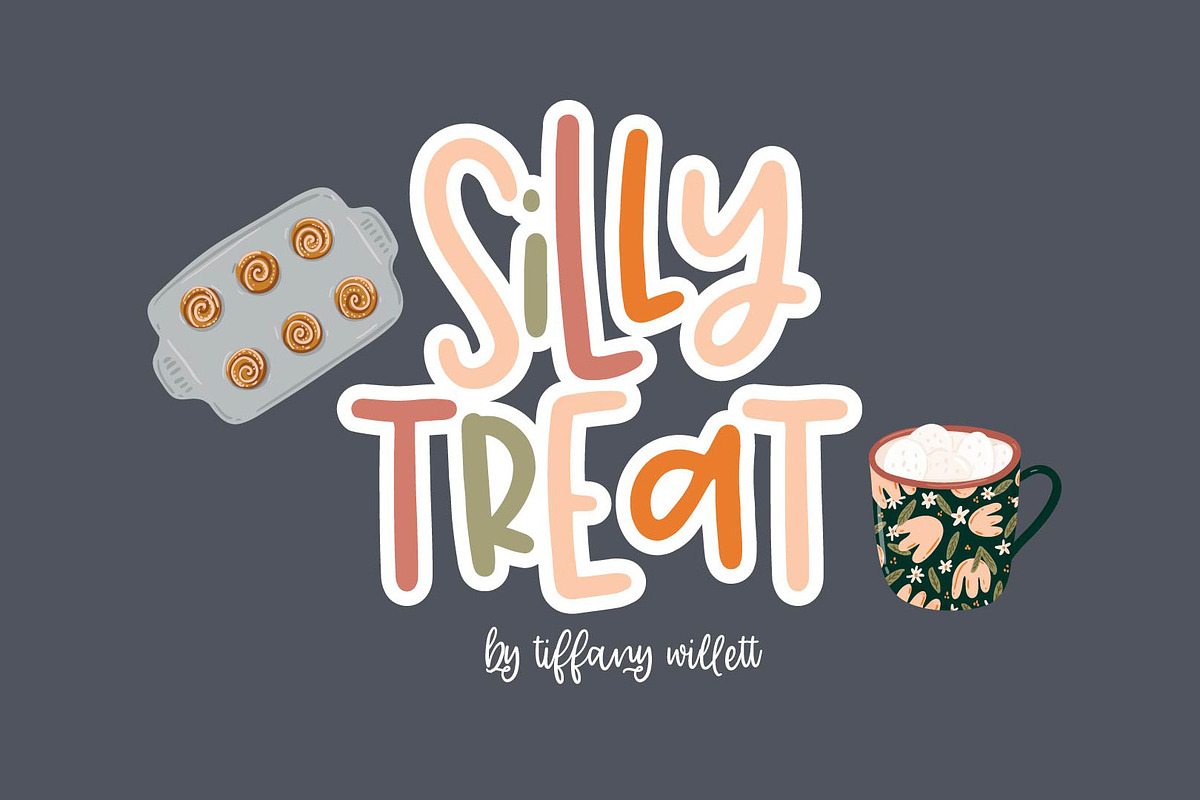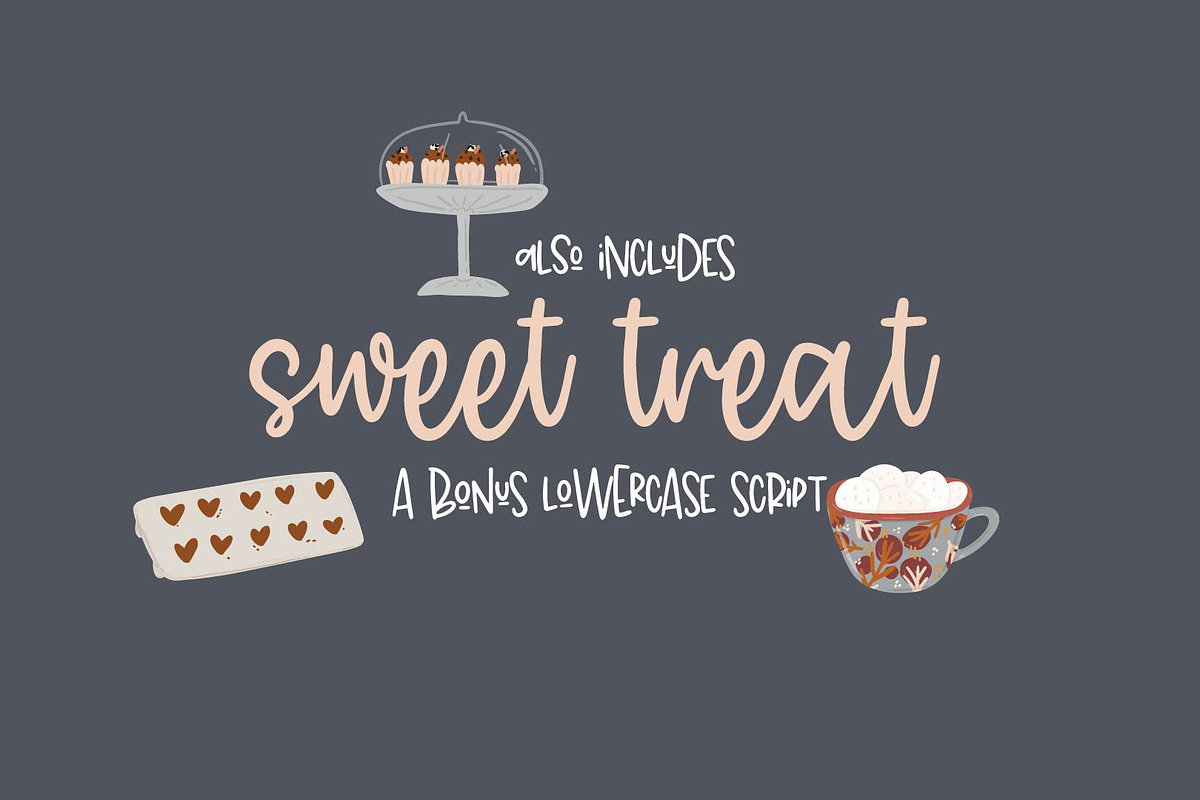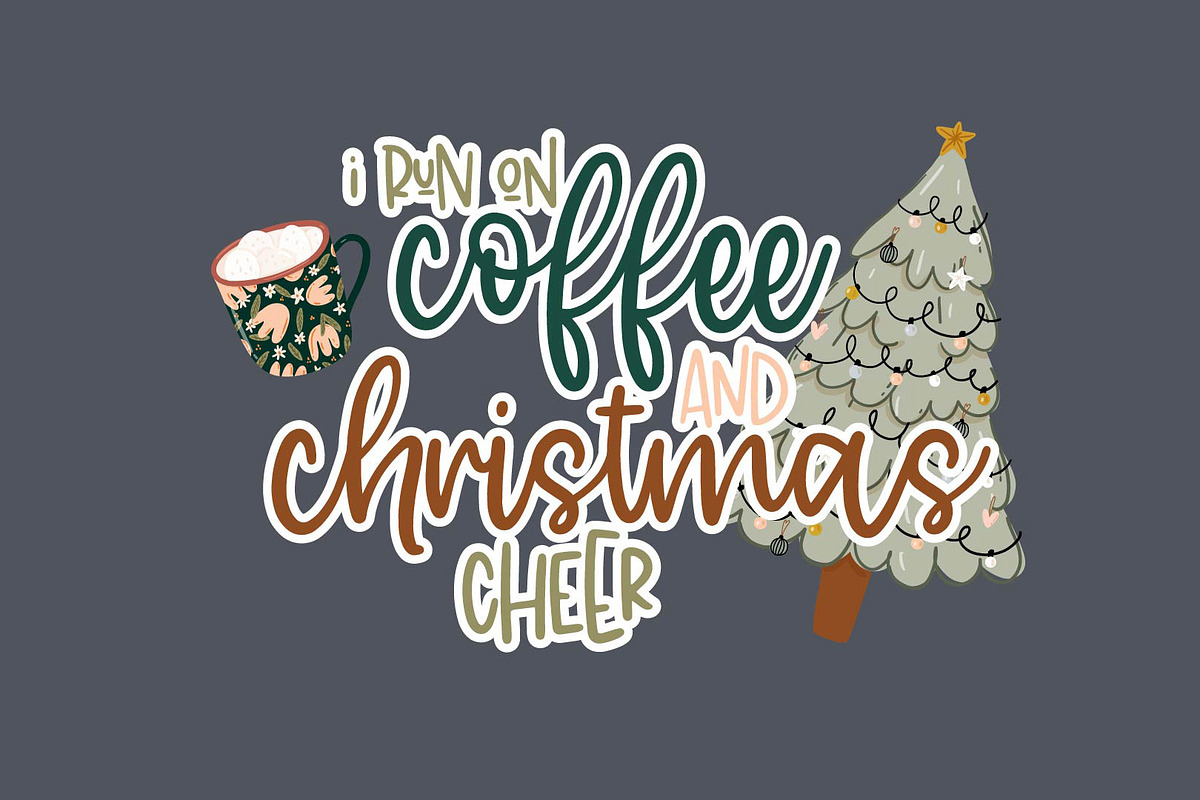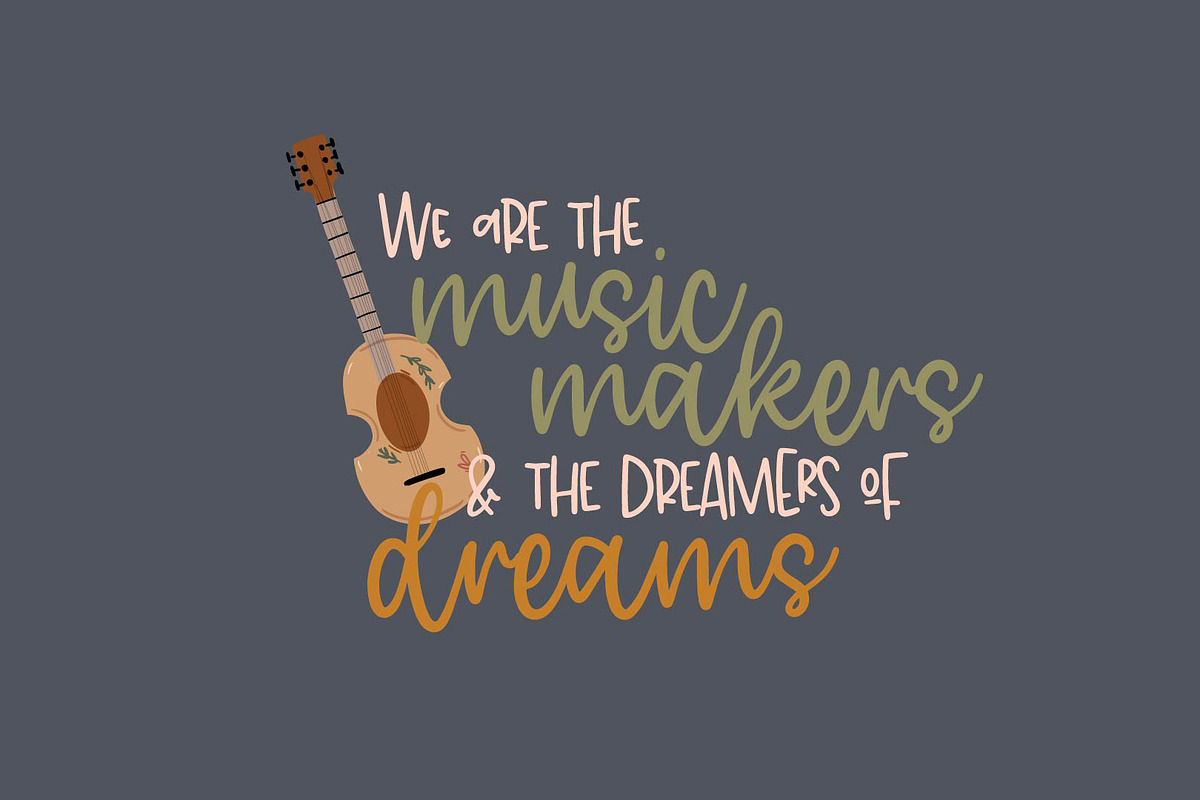
silly treat
a fun font duo that gives your project tons of personality! silly treat is a mixed case lettering style that features lots of alternates and ligatures! sweet treat is an all lowercase script that works great when paired with silly treat or on its own!